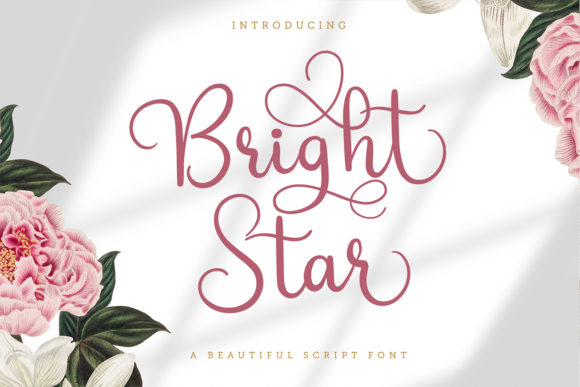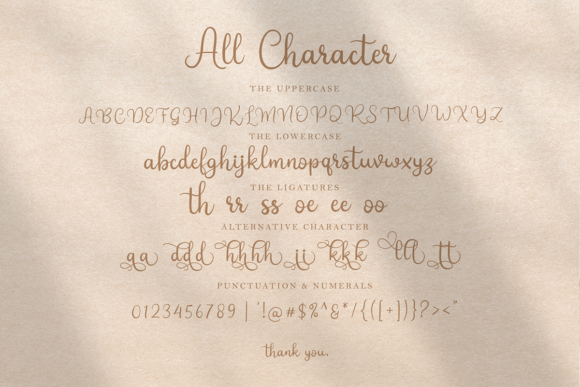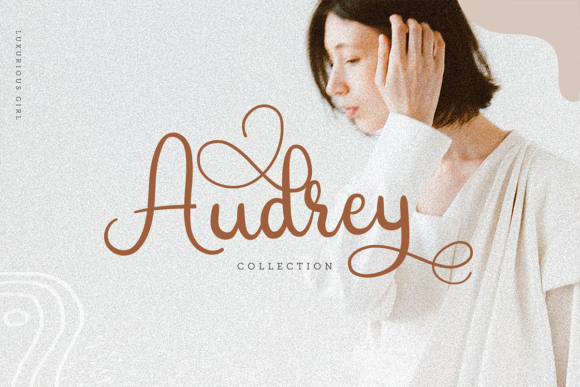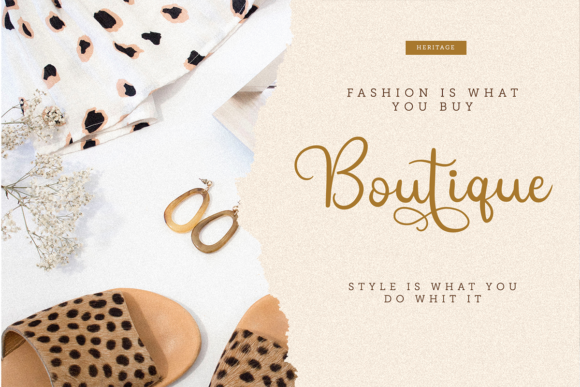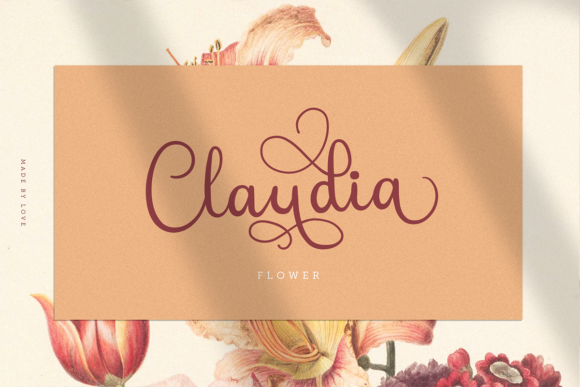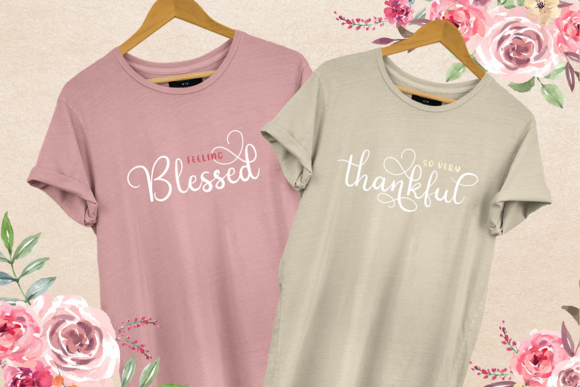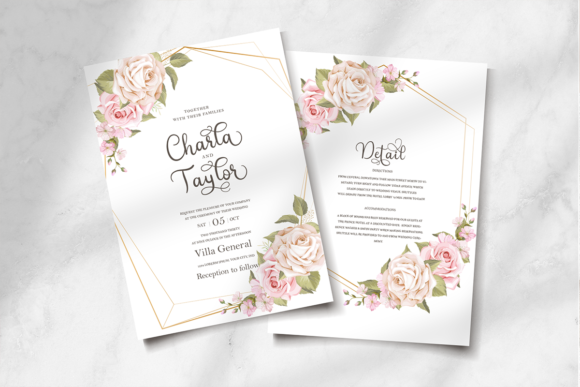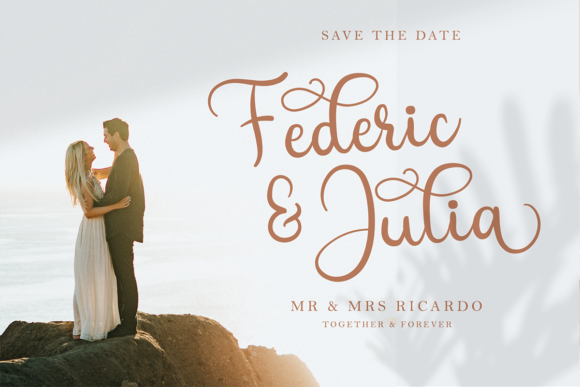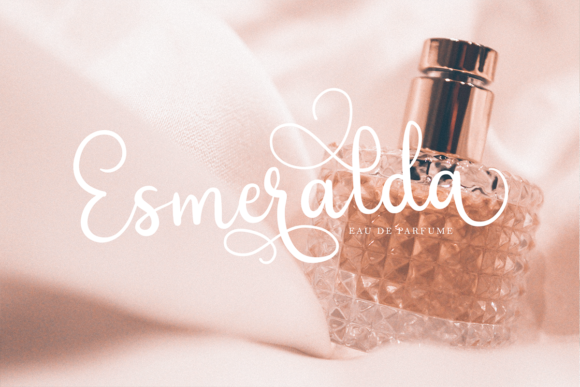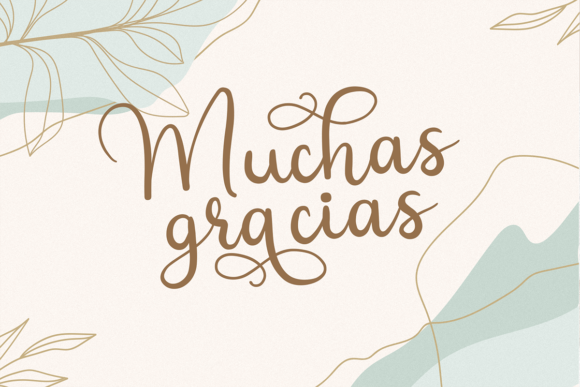
Bright Star Font
About Bright Star Font
Bright Star is an elegant and unique handwritten font. This font is PUA encoded which means you can access all of the glyphs and swashes with ease! Get inspired by its incredibly distinct style and use it to create lovely designs!